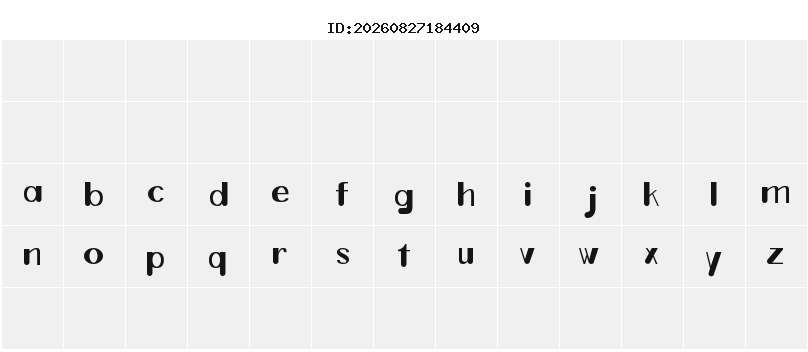
ticky ituation Preview
• Font Name: ticky ituation
• Full Font Name: ticky ituation
About ticky ituation.ttf
ticky ituation.ttf is a modern, elegant sans-serif font designed for ultimate readability and visual harmony. Perfect for branding, headlines, web design, and print materials.